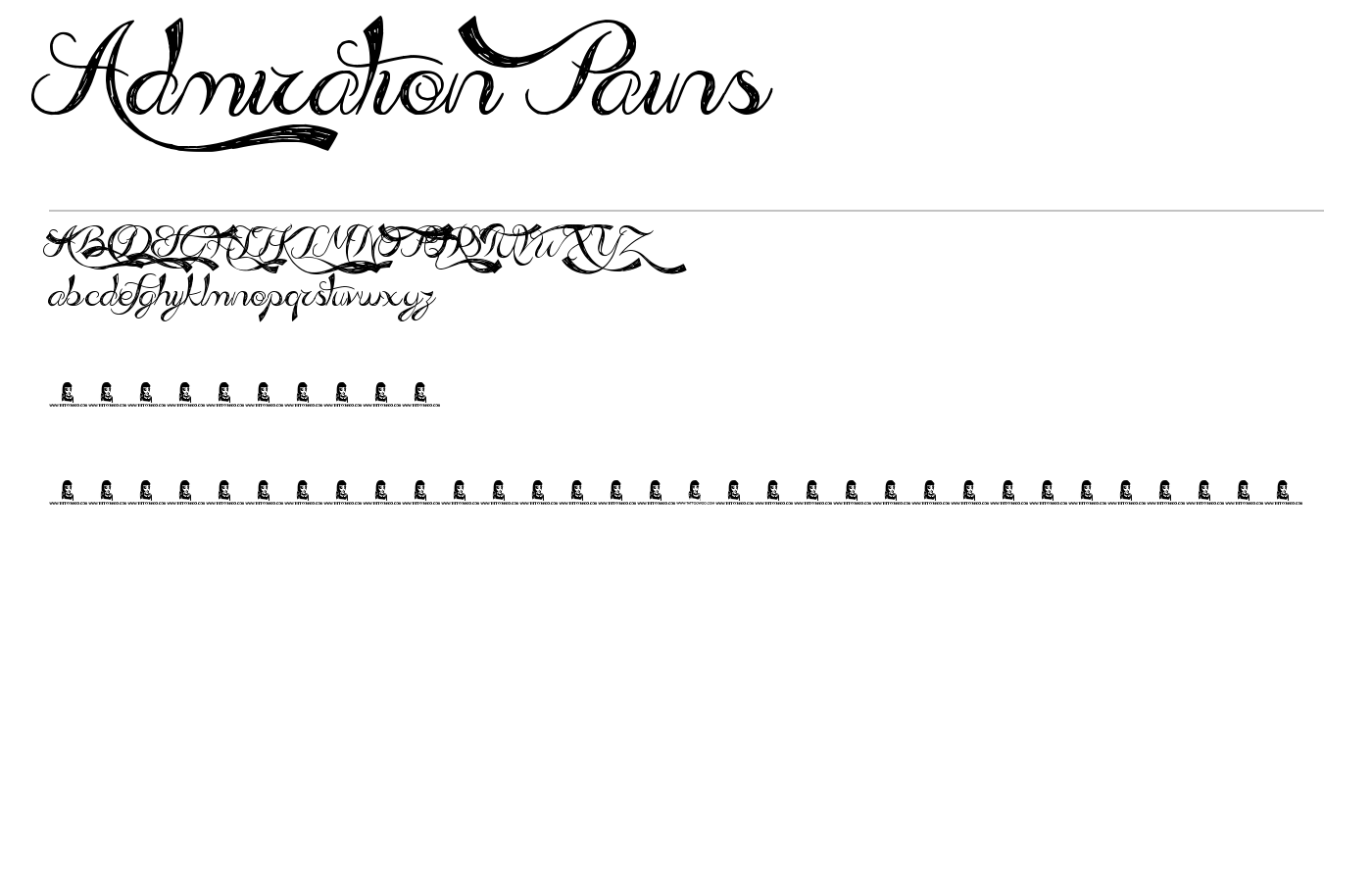
Admiration Pains is an elegant, highly decorative script font characterized by its flowing, graceful strokes and intricate swashes. Its delicate, calligraphic style makes it ideal for luxury branding, wedding invitations, and artistic projects where a sophisticated and feminine touch is desired. This font shines in display uses such as logos and headlines, where its ornate letterforms can truly stand out.
Admiration Pains Font
About Admiration Pains Font